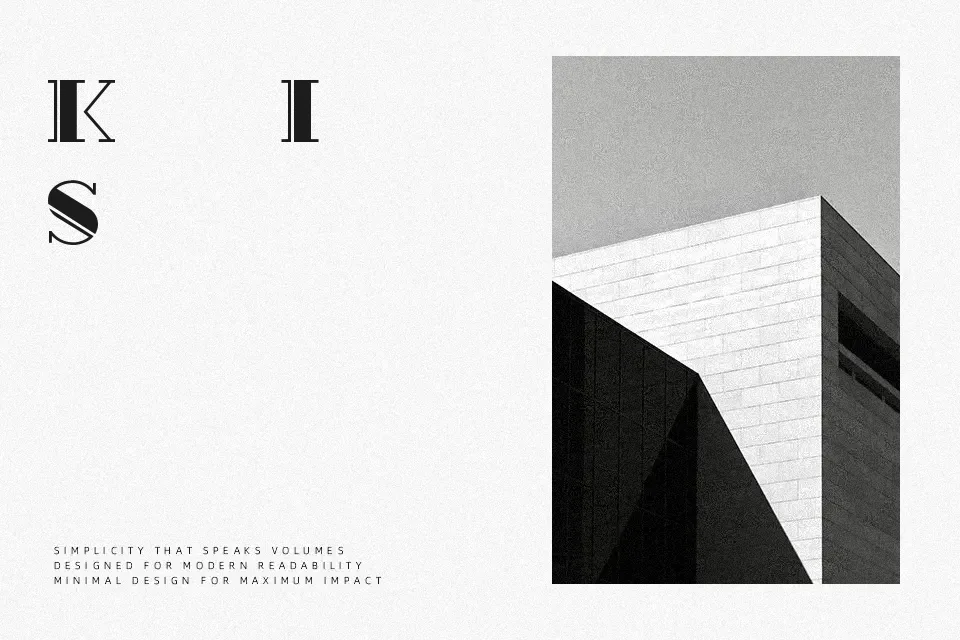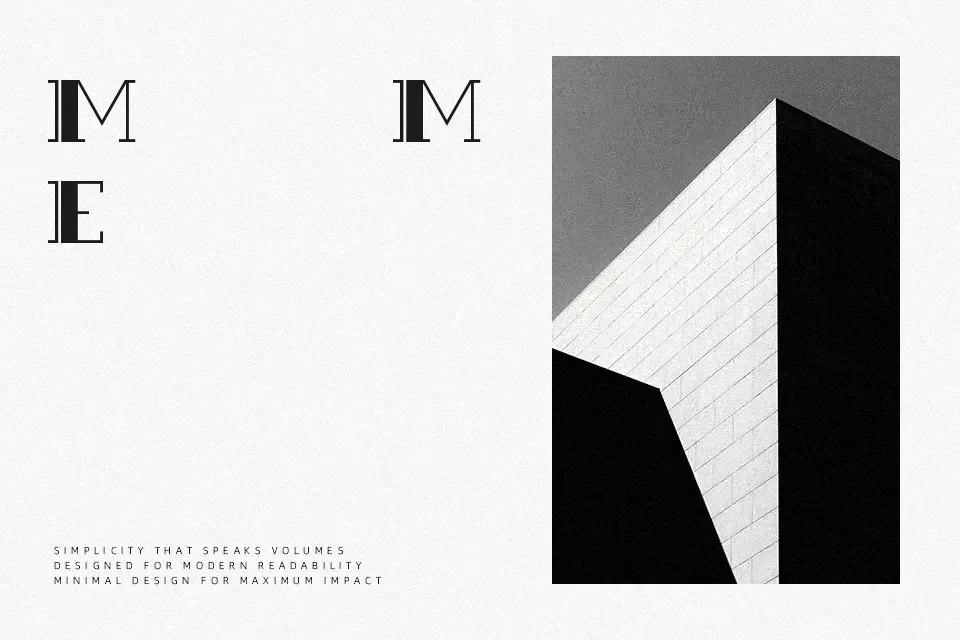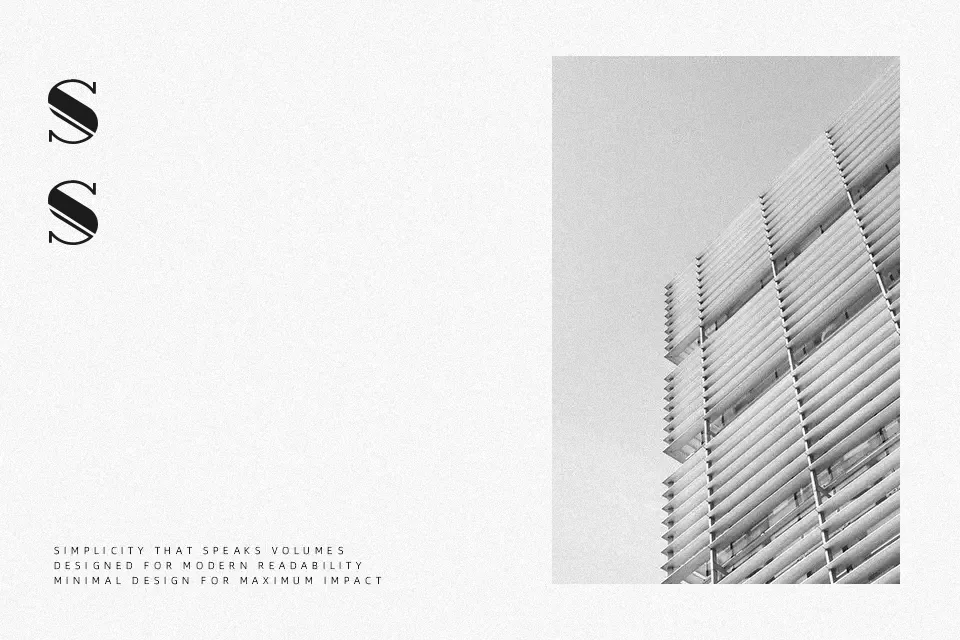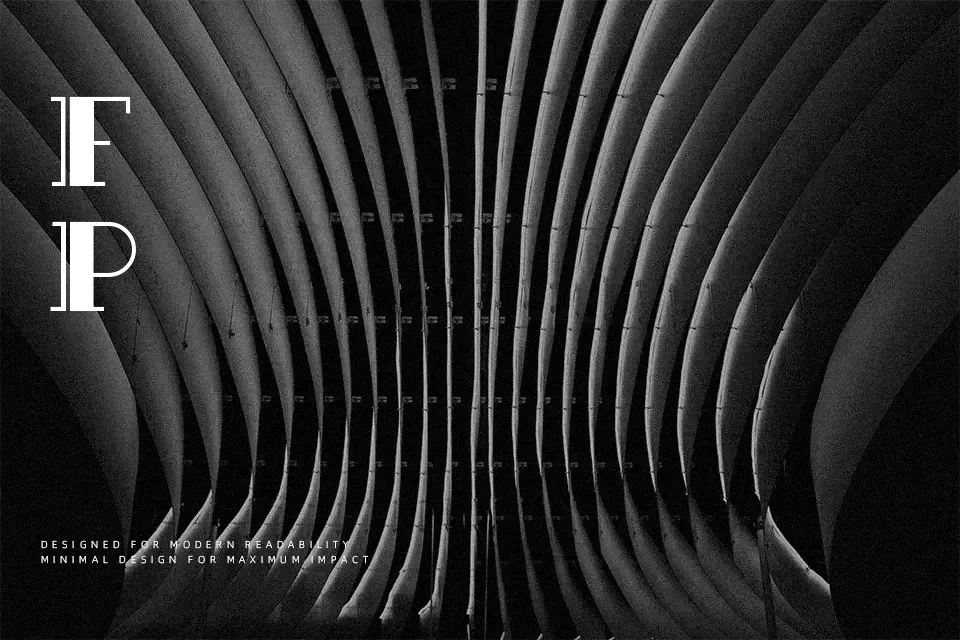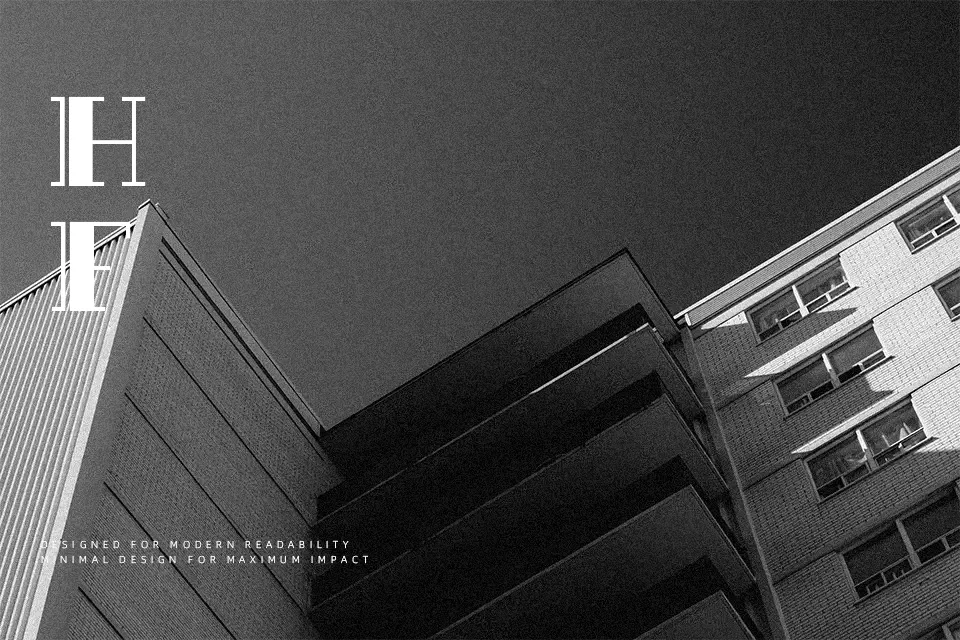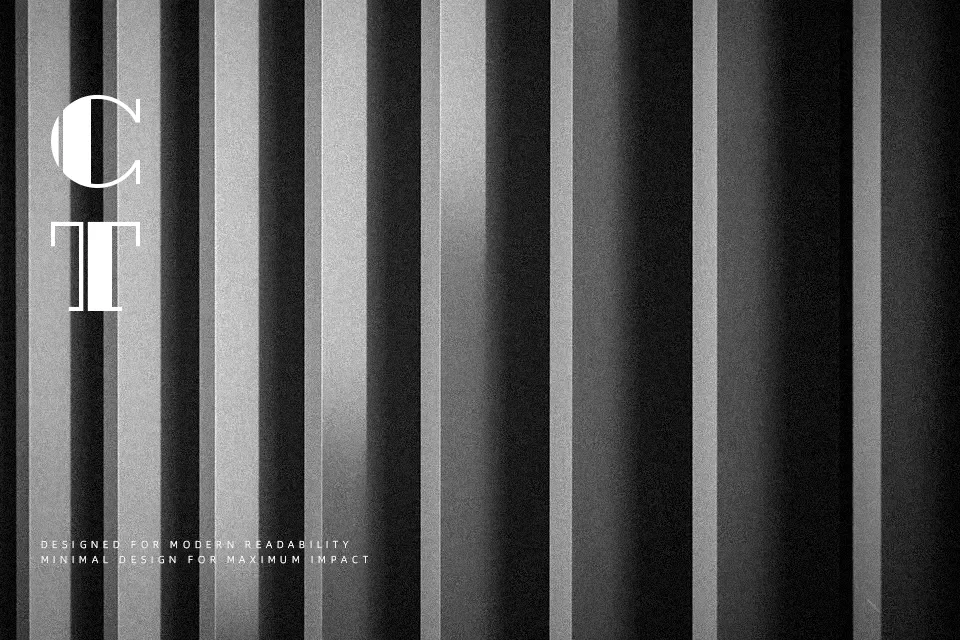
Rialto Font
Designed by Nick's Fonts
Rialto Font offers a striking geometric structure with carefully balanced stroke contrast and distinct architectural proportions. The letterforms carry a pronounced vintage aesthetic, characterized by sharp angles and uniform thickness that command attention in larger formats. Its rigid yet elegant spacing ensures that characters maintain their unique rhythm, making it highly effective for prominent headlines and stylized logos. The clean terminals contribute to a crisp appearance, preventing visual clutter when scaled up for posters or banners. However, these same structural rigidities and stylized proportions make the typeface less effective for smaller text. Dense forms reduce comfort during extended reading, limiting its ideal application to short, impactful bursts of display copy.
Best For: vintage movie posters, classic theater branding, retro advertising headlines, elegant product packaging
Not Ideal For: dense editorial layouts, small technical manuals, long paragraph text
Perfect for advertising, branding, and headline, with a classic and display style.